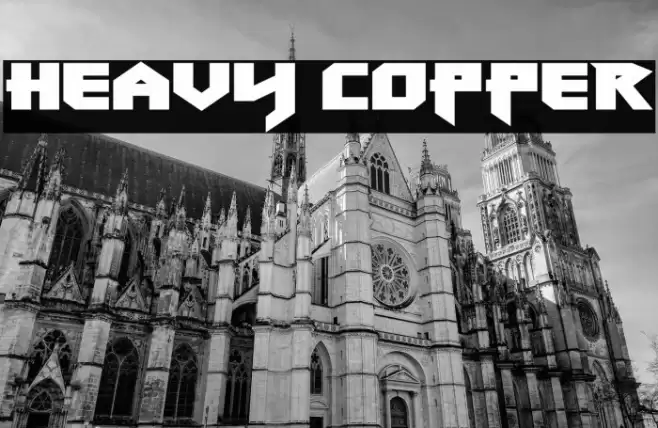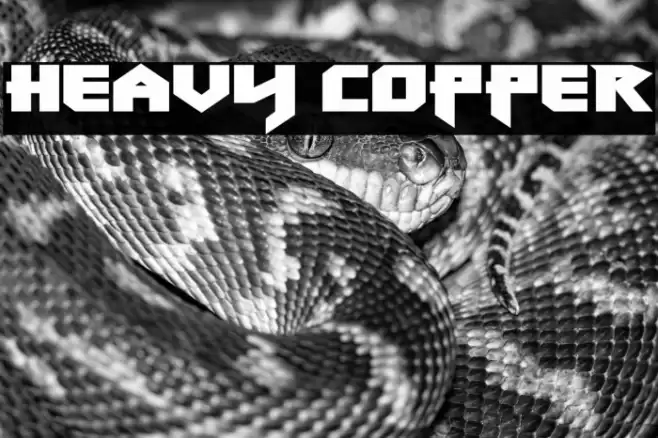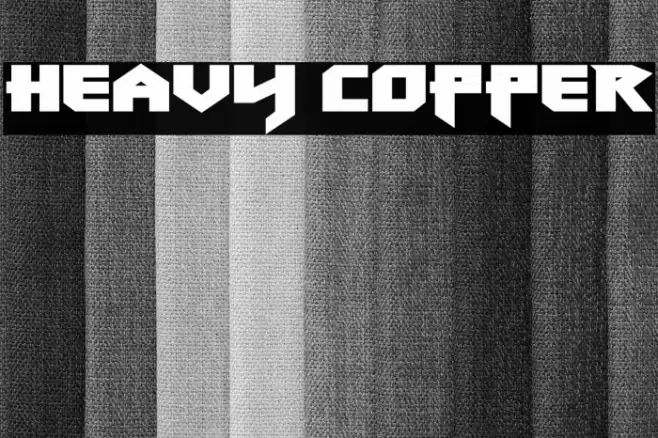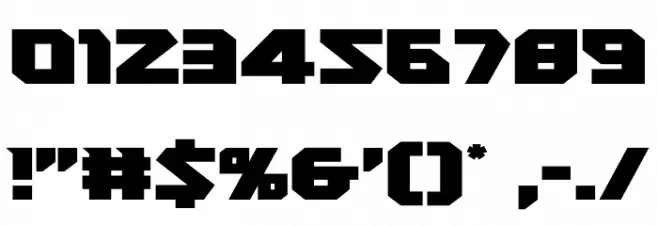
Heavy Copper Font
Heavy Copper Description
This font features a bold, angular design with sharp edges and a geometric structure. The characters are heavily stylized, giving them a futuristic and aggressive appearance. The uppercase and lowercase letters maintain a consistent weight, contributing to a uniform look across the typeface. The numerals and special characters follow the same design principles, ensuring cohesion throughout. The font's strong presence makes it ideal for attention-grabbing applications.
A bold, angular font with a futuristic and aggressive style from Uncategorized fonts.
- Proposed Projects: Ideal for use in video game titles, movie posters, branding for tech companies, or any project requiring a strong, modern aesthetic.